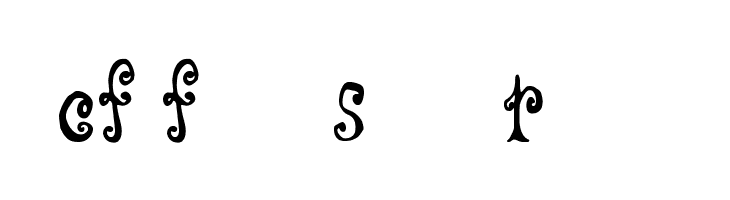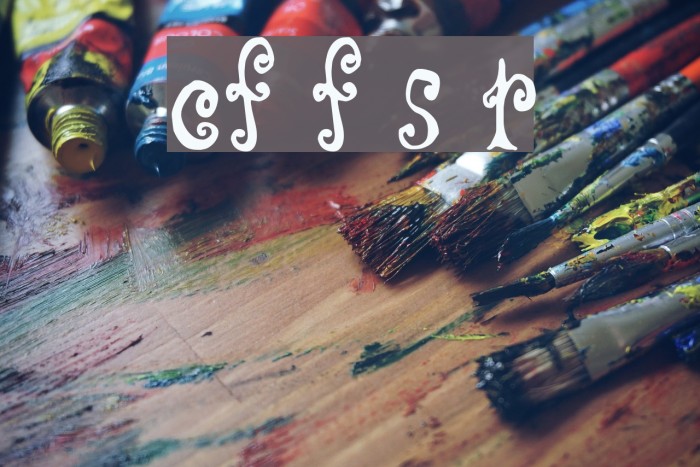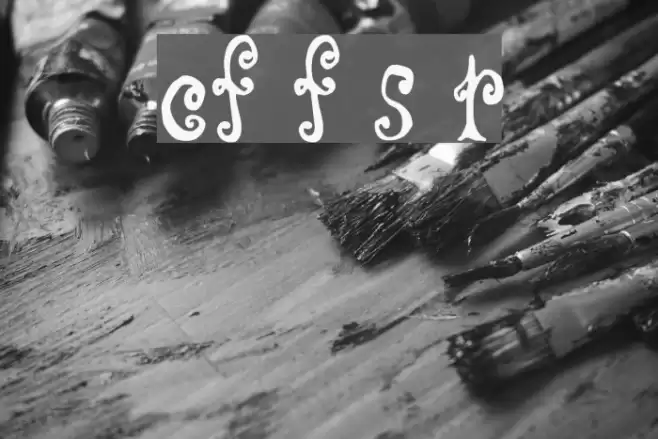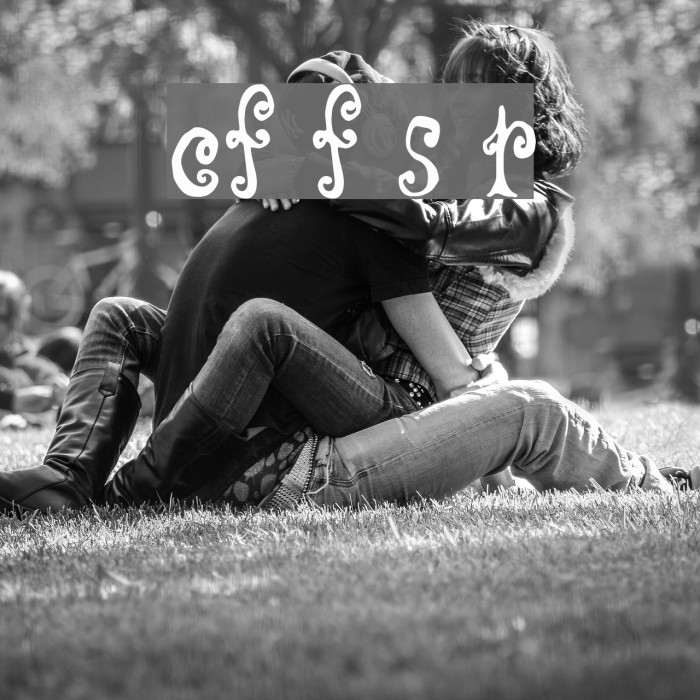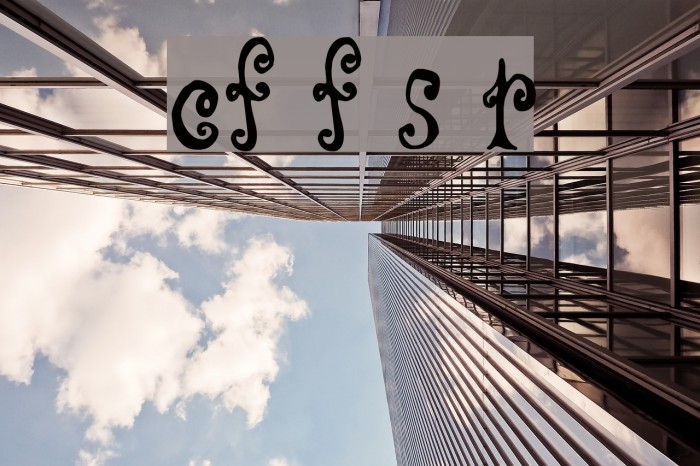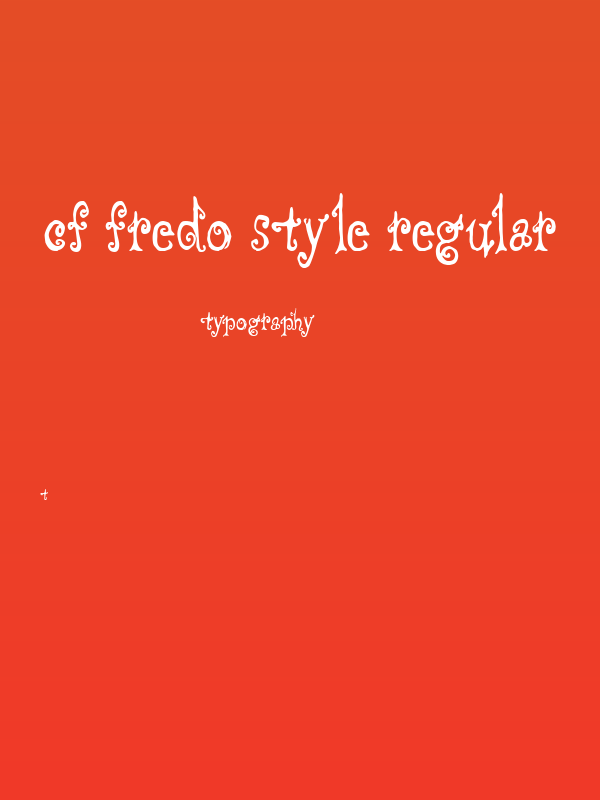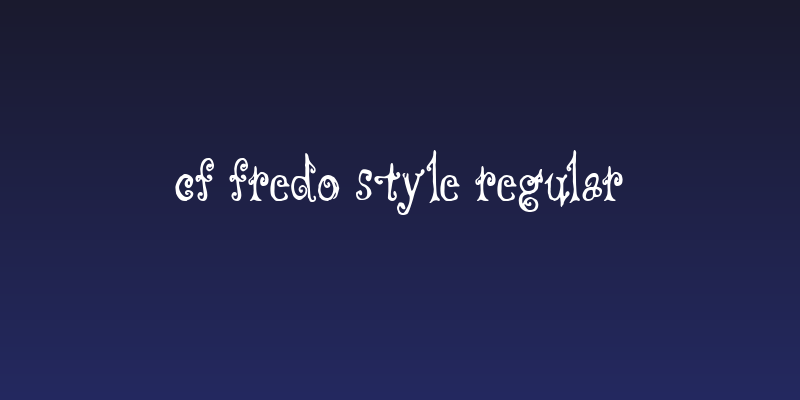
CF Fredo Style Regular Font
CF Fredo Style Regular Description
This font features a whimsical and decorative style with playful, curly serifs and unique character shapes. Each letter is adorned with intricate swirls and loops, giving it a lively and artistic appearance. The overall design is reminiscent of a fairy tale or fantasy theme, making it ideal for creative and imaginative projects. The font maintains a consistent weight throughout, with moderate contrast between thick and thin strokes. Its distinct personality makes it stand out, perfect for capturing attention in various design contexts.
| Proposed Projects | Ideal for children's book covers, fantasy-themed posters, invitations, and creative branding. |